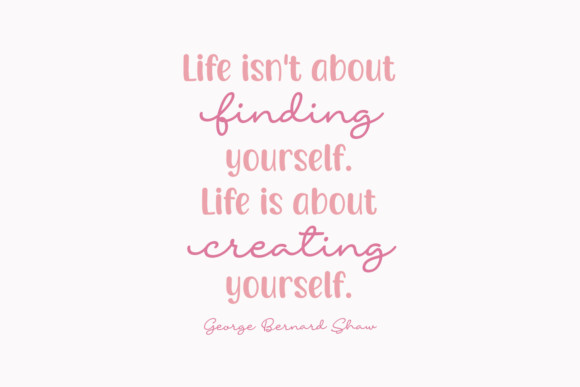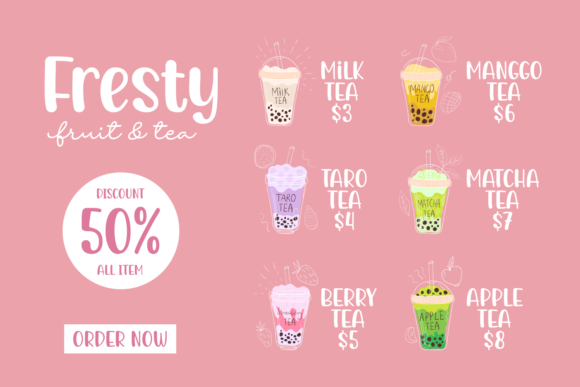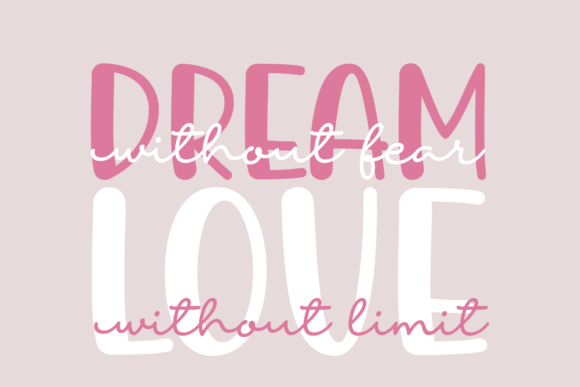
Creamy Sugary Font: The Sweetest Addition to Your Design Collection
Are you on the hunt for a font that’s as sweet as it is versatile? Look no further than Creamy Sugary, a playful and fun handwritten font that’s sure to inspire your next creative project. With its whimsical charm and smooth, creamy texture, this font is perfect for designers and crafters who want to add a touch of warmth and personality to their work.
The Perfect Font for Sweet Designs
Creamy Sugary is a font that’s all about evoking a sense of fun and playfulness. Its sugary sweet aesthetic makes it an ideal choice for designs that need to capture the imagination of kids and adults alike. Whether you’re working on a storybook, book cover, or children’s product, this font is sure to bring a smile to your audience’s faces.
So, what can you create with Creamy Sugary? The possibilities are endless! Here are just a few ideas to get you started:
- Storybooks and Book Covers: Add a touch of magic to your storybook or book cover with Creamy Sugary’s playful, cursive script.
- Children’s Products: From kids’ clothing to toys and games, Creamy Sugary is the perfect font for any product that needs to appeal to a young audience.
- Ice Cream Logos: Who wouldn’t want to create a logo for an ice cream shop or brand with a font that’s as sweet as Creamy Sugary?
- Crafting and Scrapbooking: Add a personal touch to your crafting and scrapbooking projects with Creamy Sugary’s whimsical, handwritten charm.
What Makes Creamy Sugary So Special?
So, what sets Creamy Sugary apart from other fonts? Here are just a few features that make it a standout:
- Playful and Fun: Creamy Sugary is a font that’s all about having fun. Its playful, cursive script is sure to bring a smile to your audience’s faces.
- Handwritten Charm: With its smooth, handwritten texture, Creamy Sugary adds a personal touch to any design.
- Versatile: Whether you’re working on a children’s product or an adult-oriented design, Creamy Sugary is versatile enough to adapt to any style or theme.
Tips for Using Creamy Sugary in Your Designs
Ready to get started with Creamy Sugary? Here are a few tips to keep in mind:
- Pair it with Bold Fonts: Creamy Sugary’s playful script pairs perfectly with bold, sans-serif fonts. Try pairing it with a font like Arial Black or Impact for a striking contrast.
- Use it in Headlines and Titles: Creamy Sugary is perfect for headlines and titles, where its playful charm can really shine.
- Experiment with Colors: Don’t be afraid to experiment with different colors and textures when using Creamy Sugary. Its smooth texture looks great in a variety of colors, from bright and bold to soft and pastel.